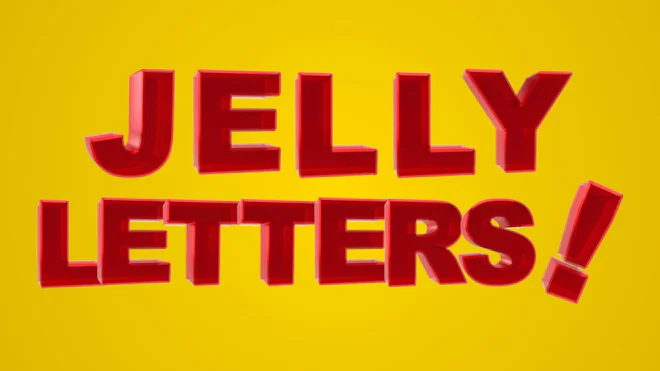
This stock motion graphics video pack includes 39 different clips of red jelly typefaces on a transparent alpha channel. The pack includes 26 letters, 10 numbers, and 3 symbols.